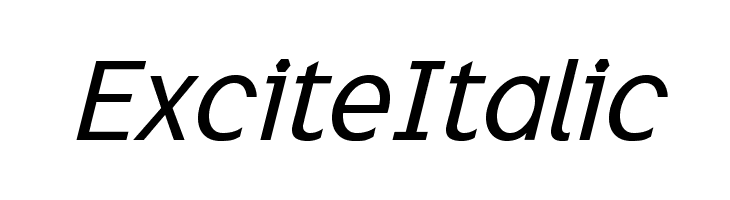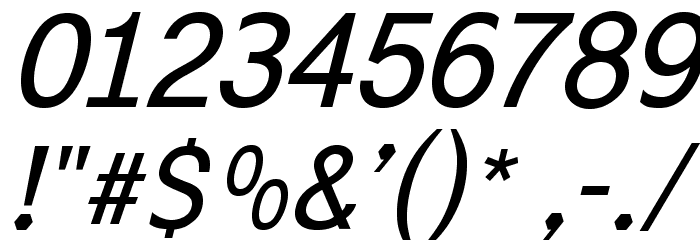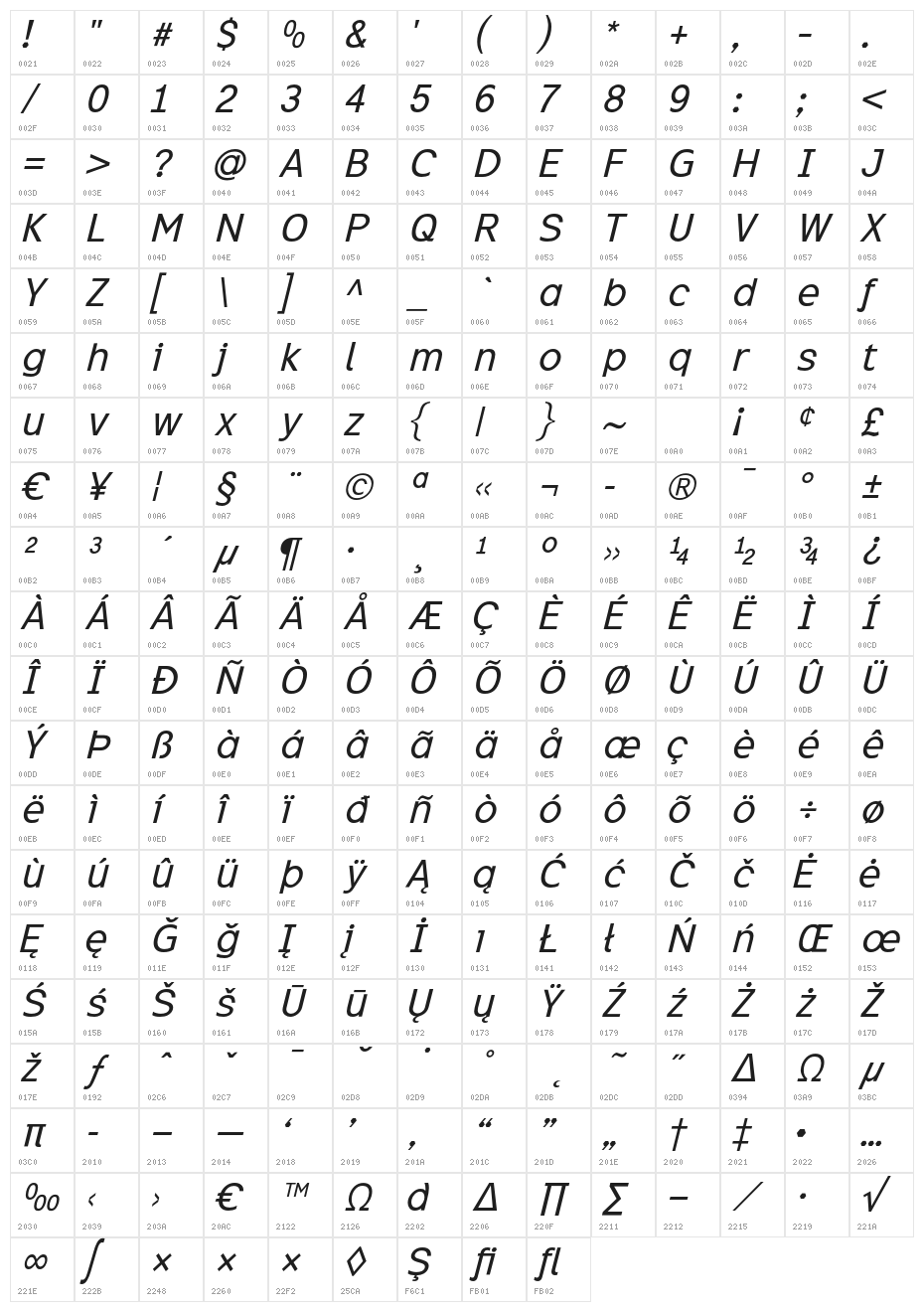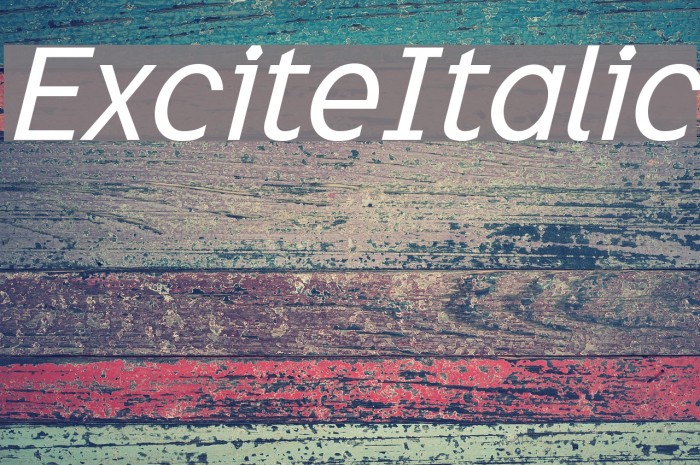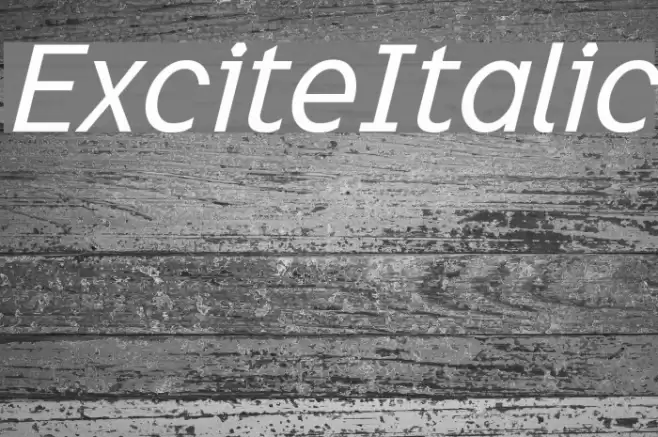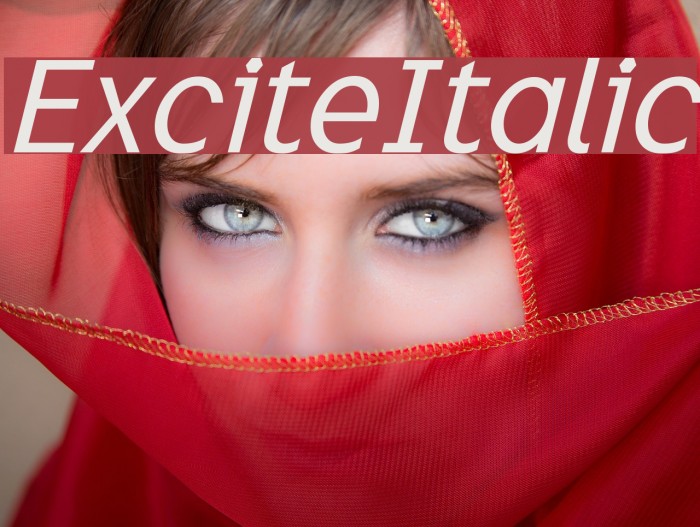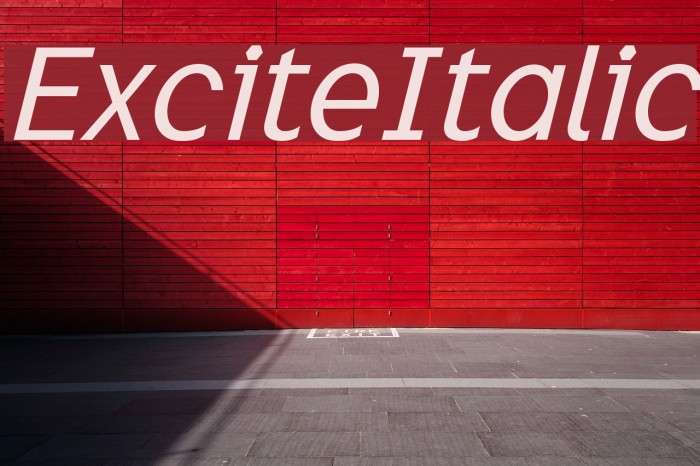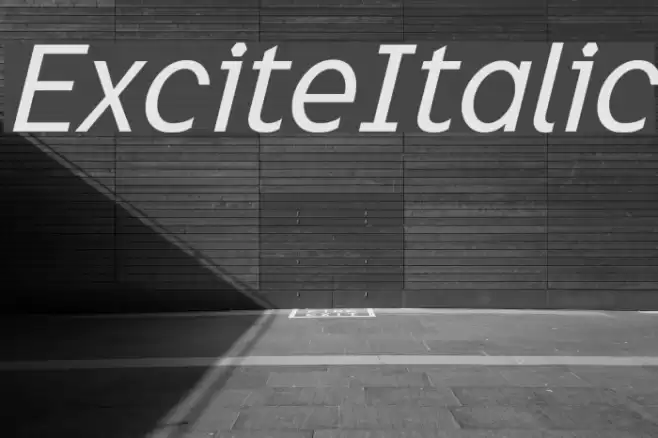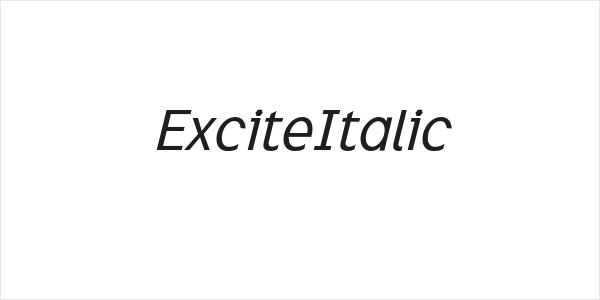
ExciteItalic Font
ExciteItalic Description
This font exhibits a sleek and modern design with an italicized style that adds a sense of motion and dynamism. The characters are slightly slanted, giving them a forward-leaning appearance that suggests speed and elegance. The strokes are clean and consistent, with a medium contrast that ensures readability while maintaining a stylish look. The font's overall appearance is contemporary, making it suitable for a variety of digital and print applications. The spacing between characters is normal, providing a balanced and harmonious text flow.
| Proposed Projects | Ideal for branding, advertising, and editorial design projects where a modern and dynamic look is desired. |